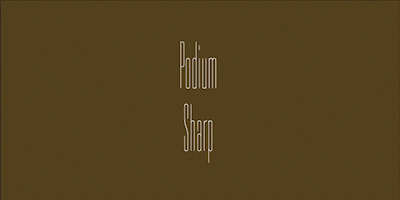
Podium Sharp Variable Font Free Download is a sleek, modern sans-serif typeface with sharp, clean lines and a distinctive geometric design. Perfect for projects that require bold, impactful typography, Podium Sharp is ideal for branding, headlines, advertising, and digital design where readability and visual appeal are equally important. The font's sharp edges and highly legible structure give it a contemporary feel, making it an excellent choice for tech, corporate, and creative industries.
The Podium Sharp Variable Font offers flexibility with its variable weight and style, allowing you to adjust the thickness and feel of the typeface to suit your project’s needs. Whether you need a heavy, attention-grabbing display or a lighter version for smaller text, this font provides the versatility you need for a wide range of applications.